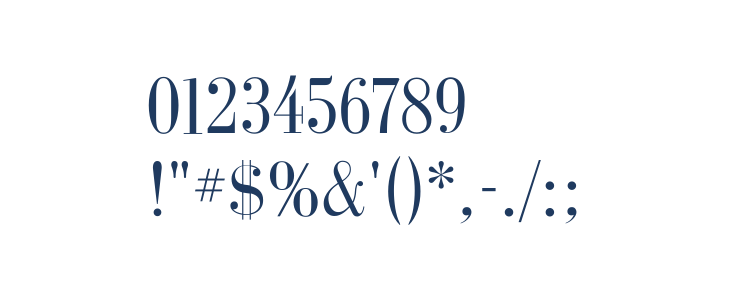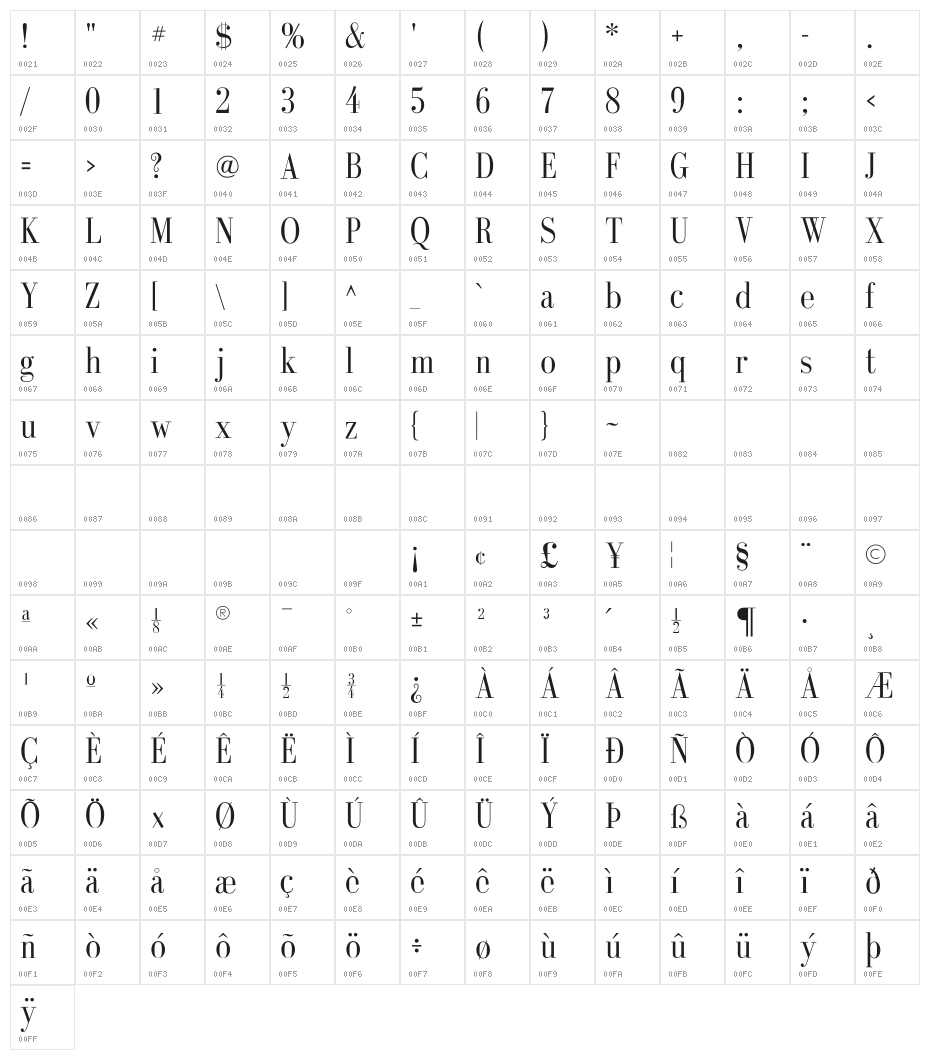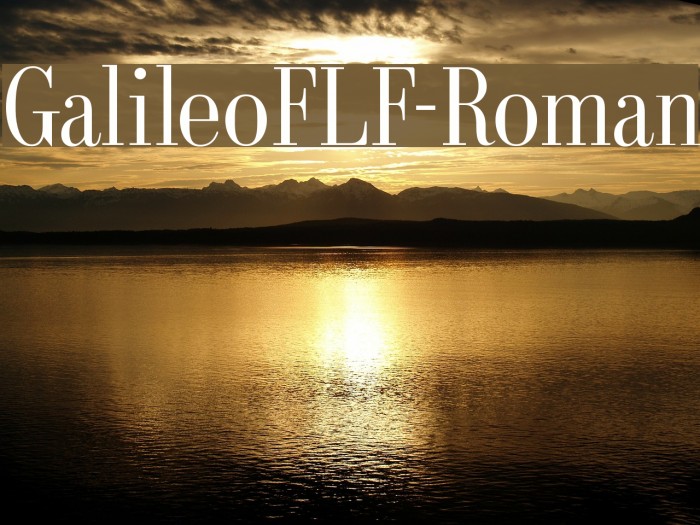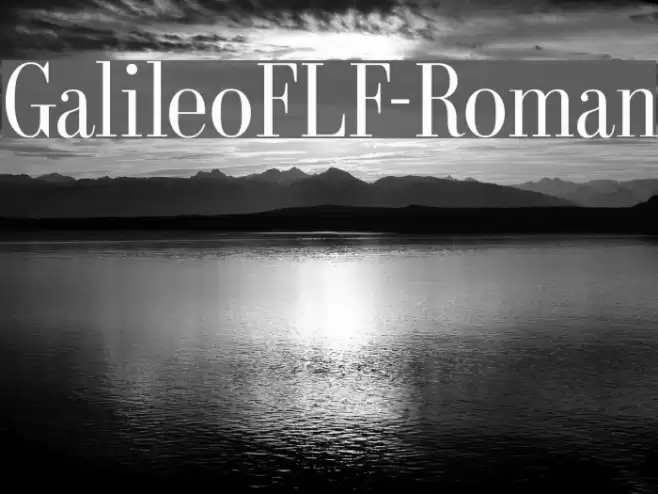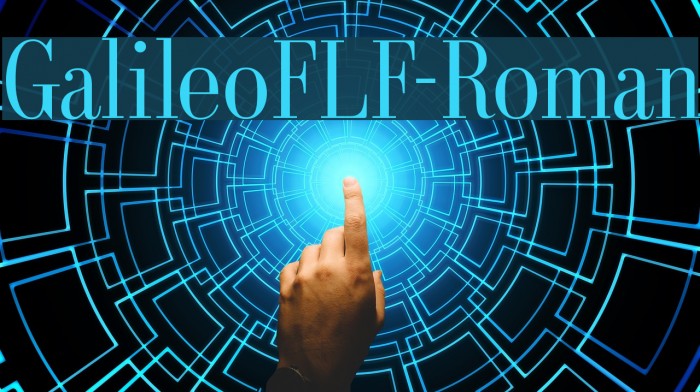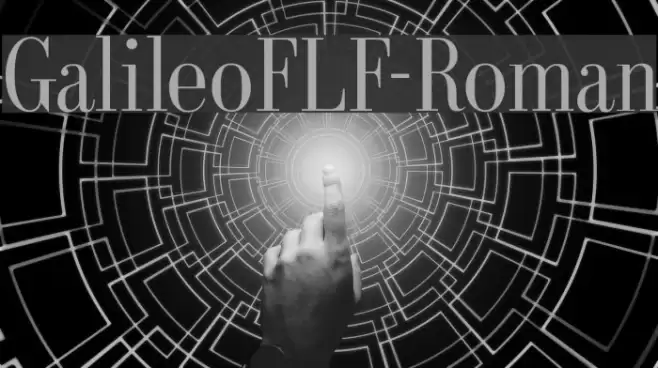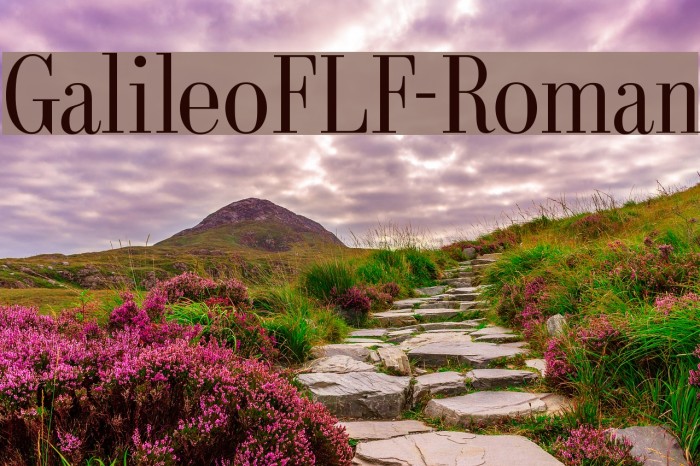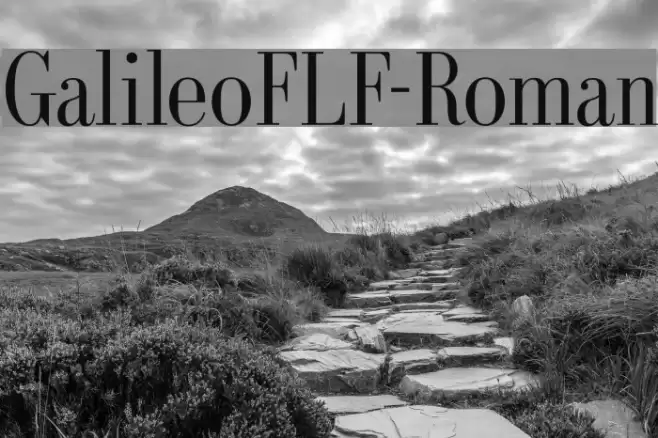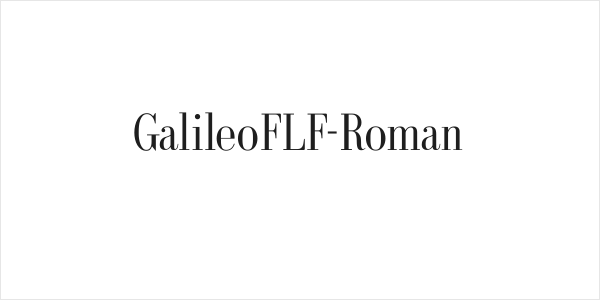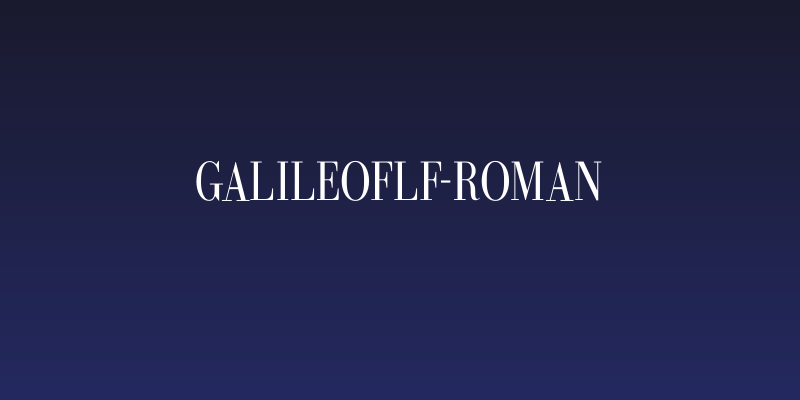
GalileoFLF-Roman Font
GalileoFLF-Roman Description
This typeface exhibits a classic serif style with elegant and refined strokes. The uppercase letters are tall and commanding, while the lowercase letters maintain a balanced and harmonious appearance. The numerals are clear and distinct, ensuring readability. Special characters are crafted with precision, adding to the font's versatility. The overall design is sophisticated, making it suitable for formal and professional applications. The contrast between thick and thin strokes is noticeable, contributing to its classic appeal.
| Proposed Projects | Ideal for editorial design, book covers, formal invitations, and branding projects that require a touch of elegance. |